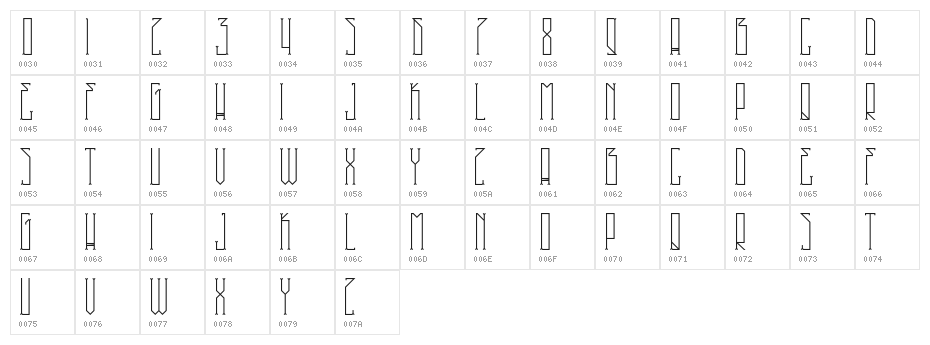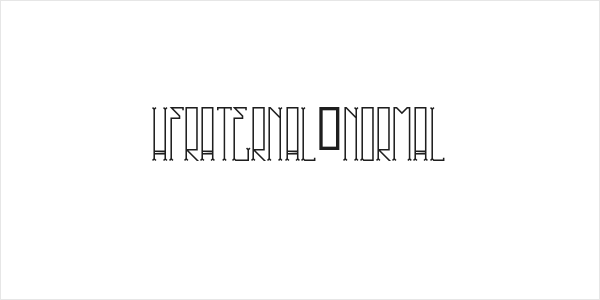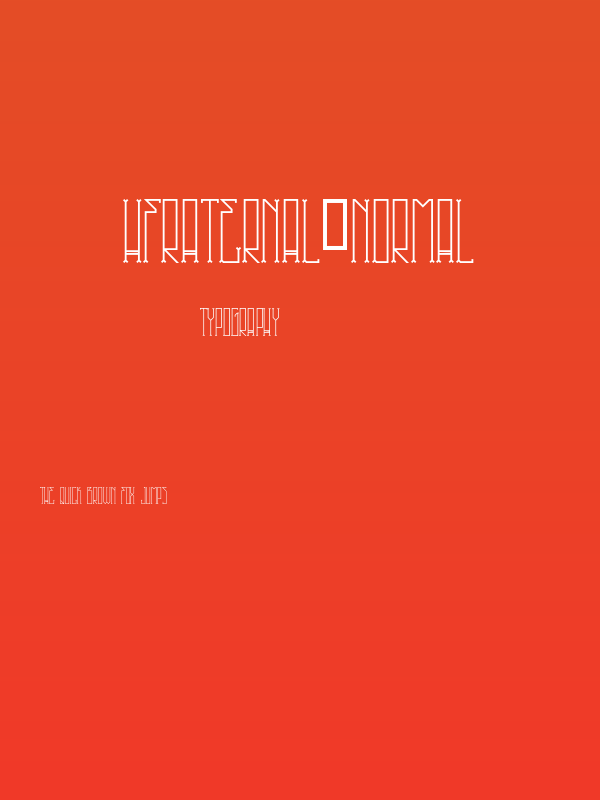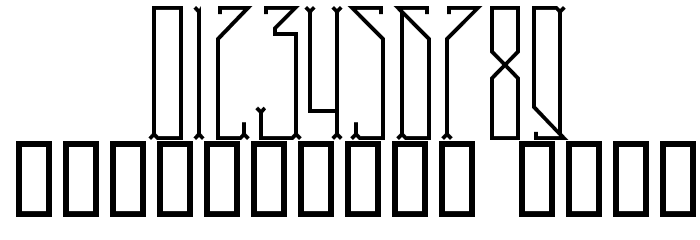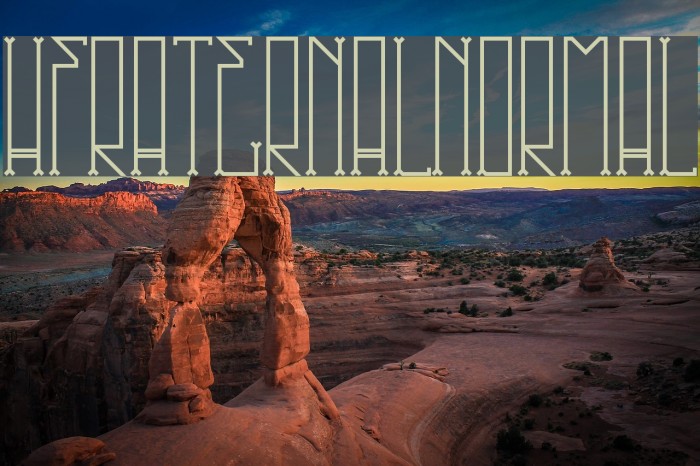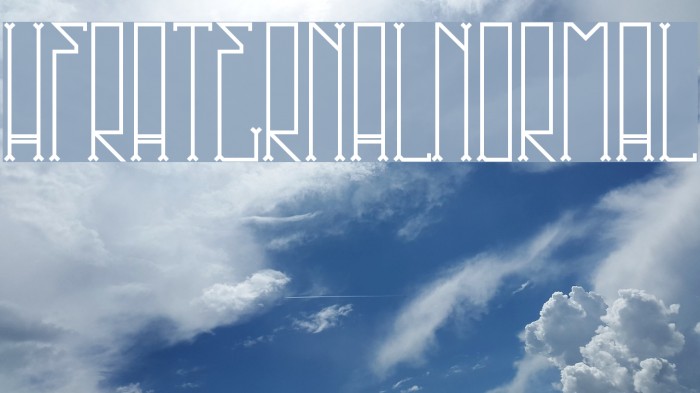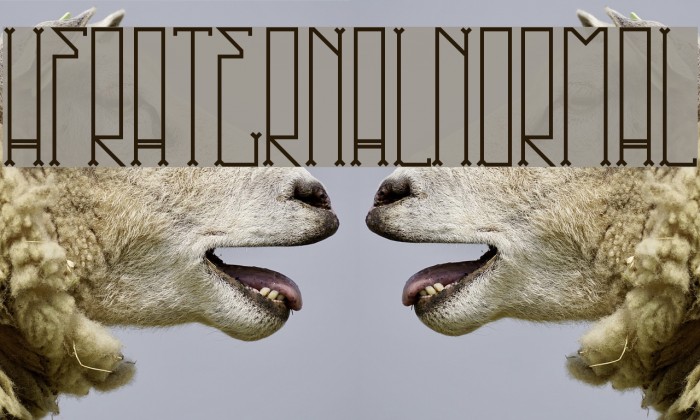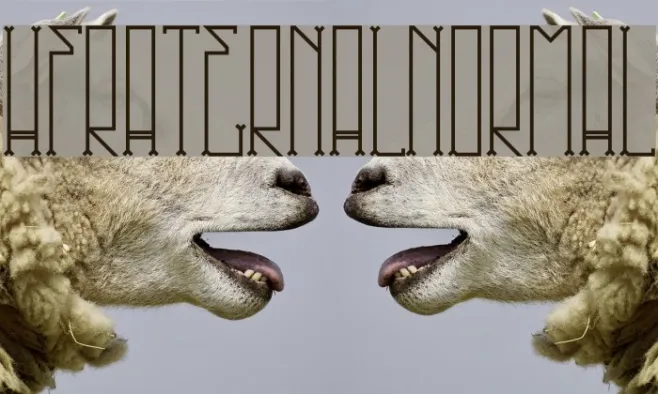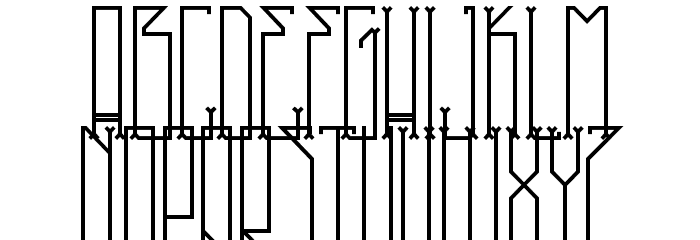
HFraternal-Normal Font
HFraternal-Normal Description
This font features a unique and intricate design with elongated, geometric letterforms. The characters are tall and narrow, with sharp angles and a consistent stroke width that gives it a modern and futuristic appearance. The uppercase and lowercase letters maintain a uniform height, contributing to a cohesive look. The numerals and special characters follow the same design principles, ensuring visual harmony across all elements. The font's distinct style makes it stand out, ideal for projects that require a bold and unconventional aesthetic.
| Use Case | Logos, Headlines |
| Proposed Projects | Ideal for branding, posters, album covers, and any project seeking a futuristic or avant-garde look. |